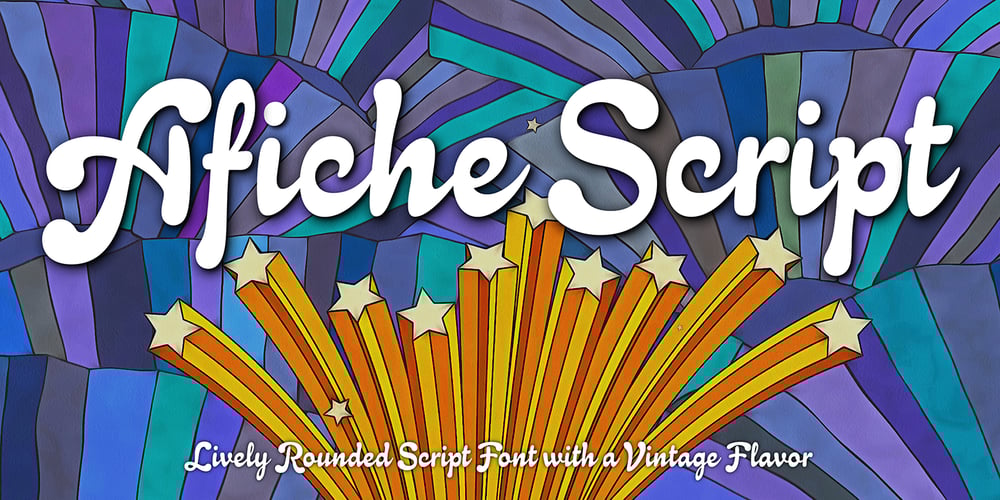
Afiche Script
Afiche Script font
Afiche Script Font Family was designed by Mott Jordan and published by Mysterylab. Afiche Script contains 1 styles and family package options. Afiche Script is an engaging vintage-flavored script font that features excellent legibility and versatility. It’s equally suited for large logo and headline applications as it is for longer text passages, being very readable even at small sizes. The appealing curves and rounded finials give it a casual and fun vibe, and the subtle reverse stroke contrast makes it a standout choice to catch the eye as being something new and different. The capitals dip below the baseline, providing a lively bounce to each line of upper and lowercase type.